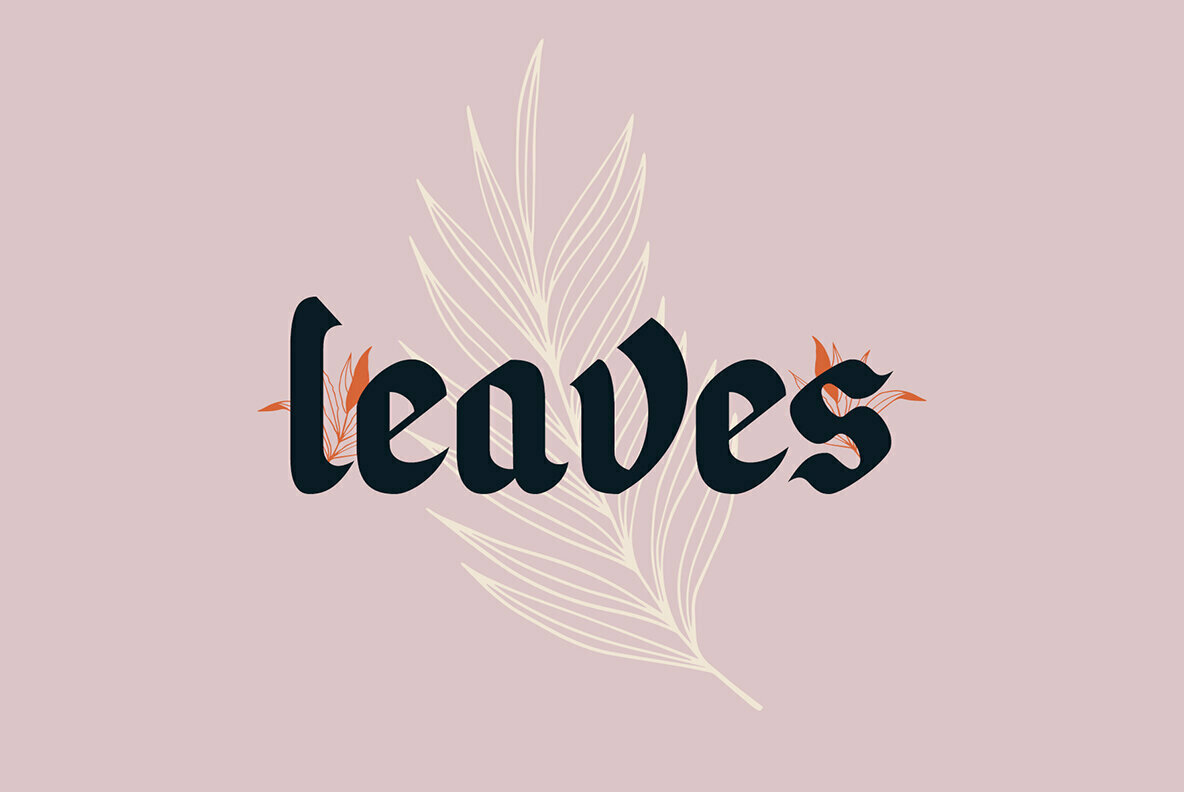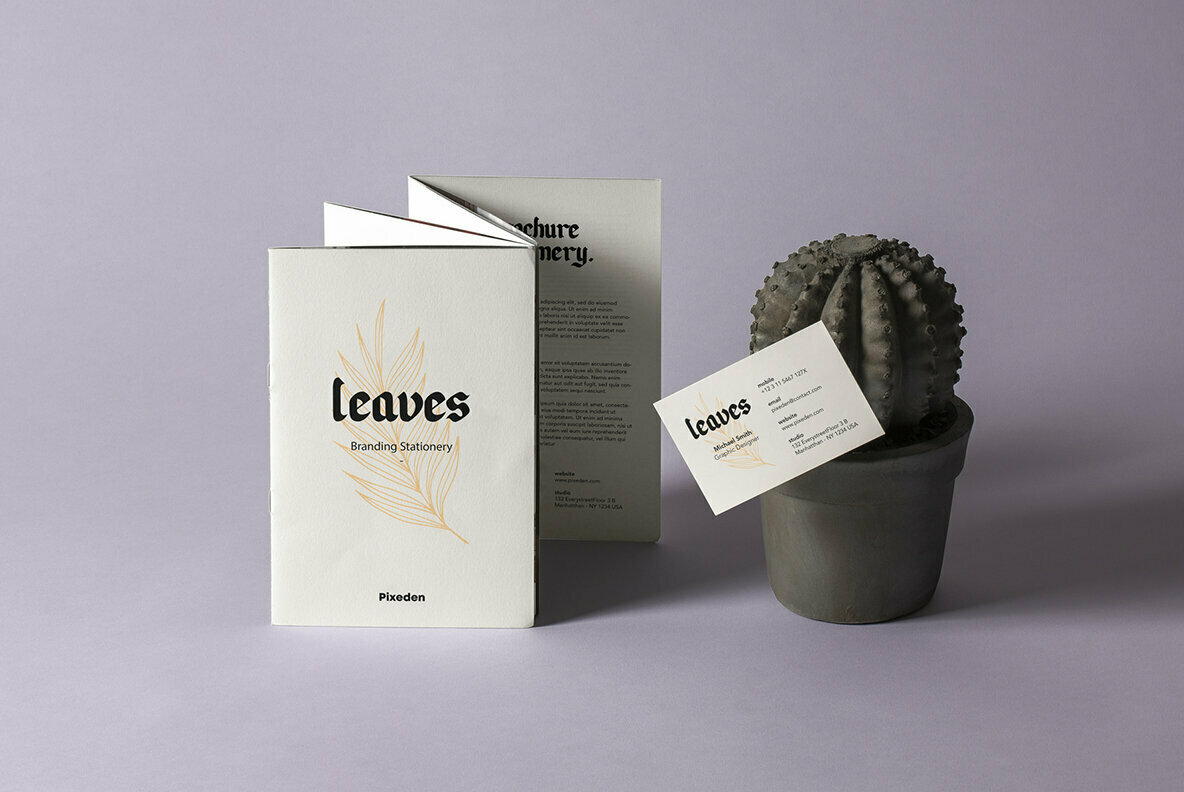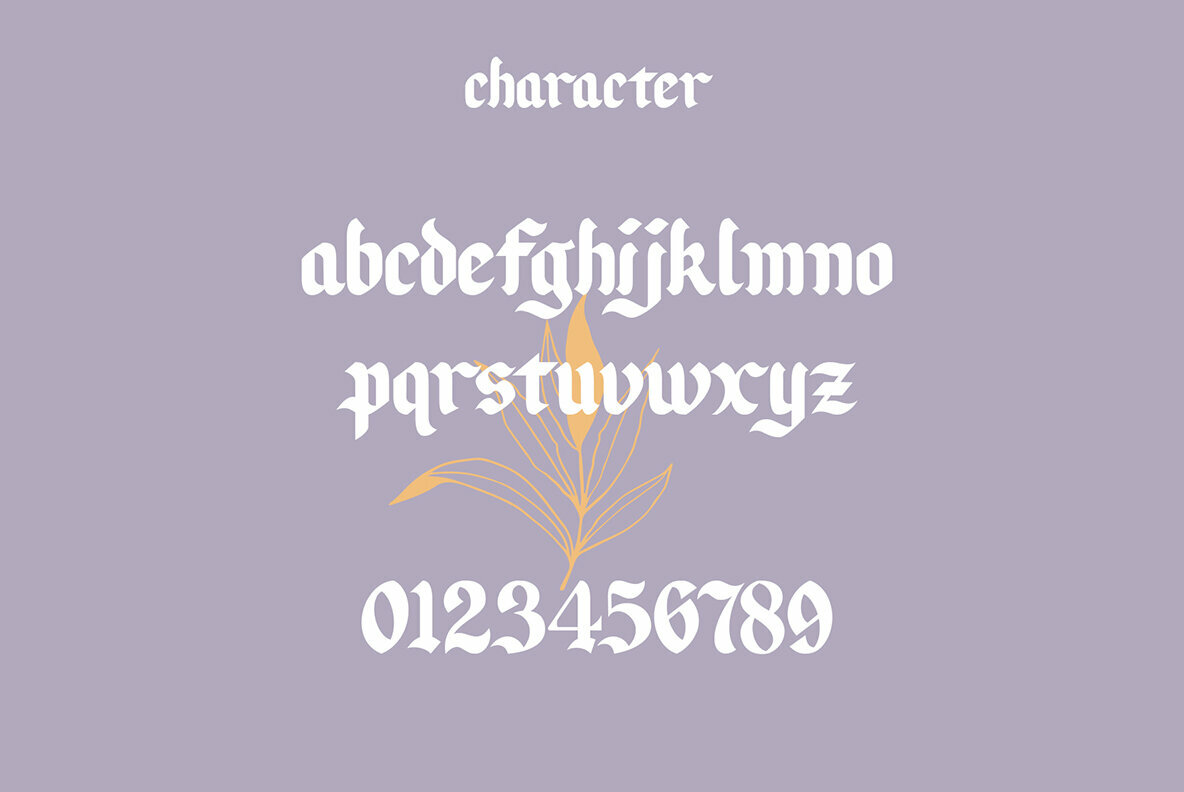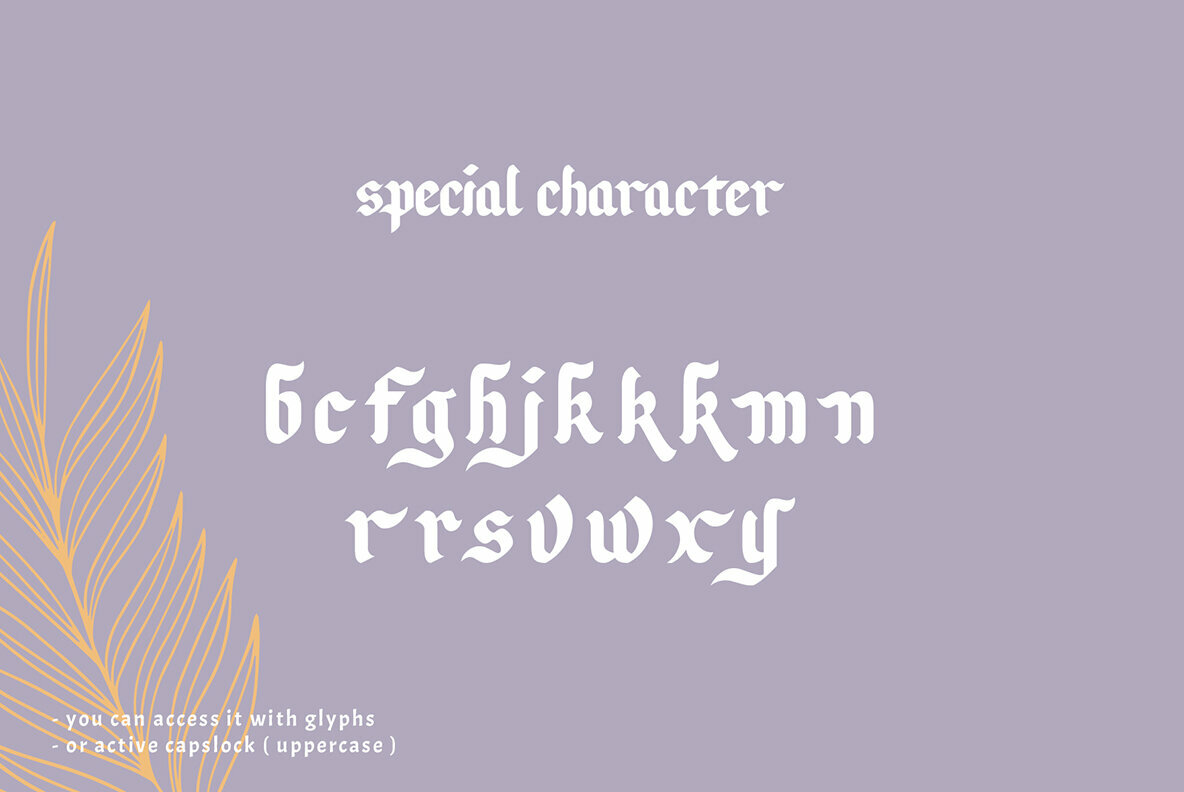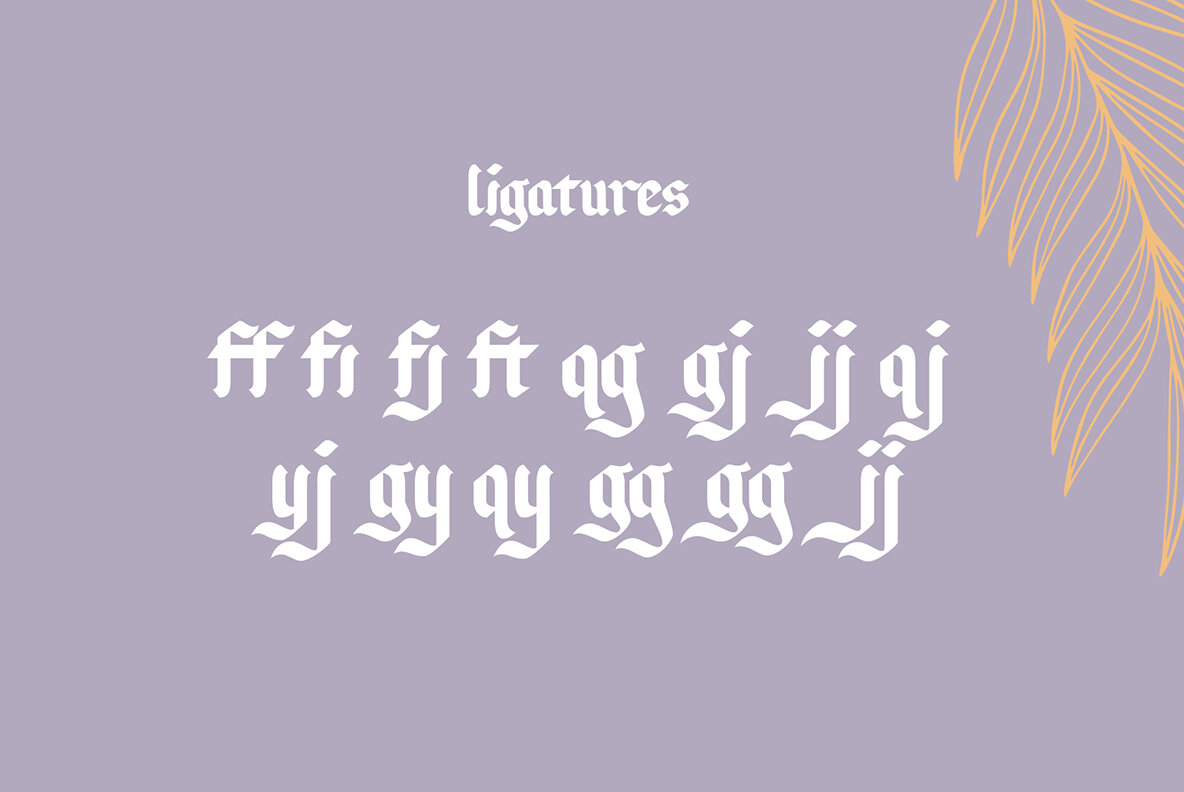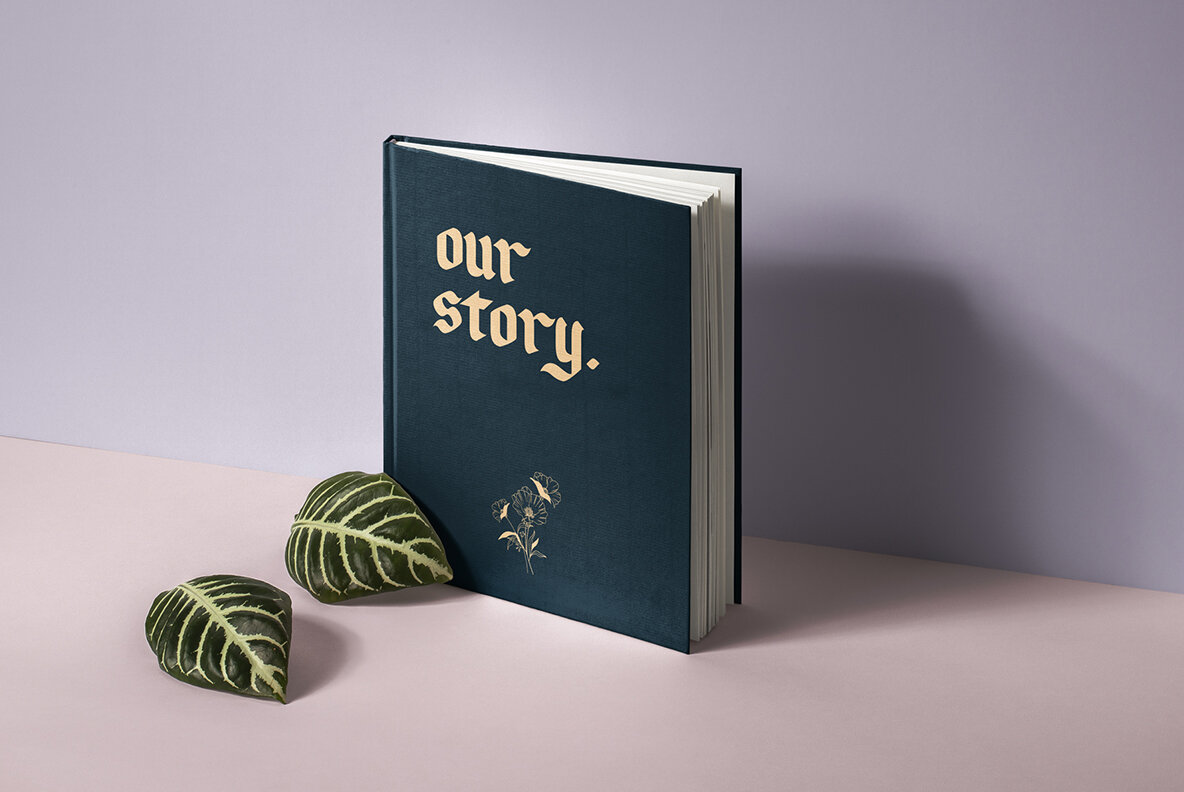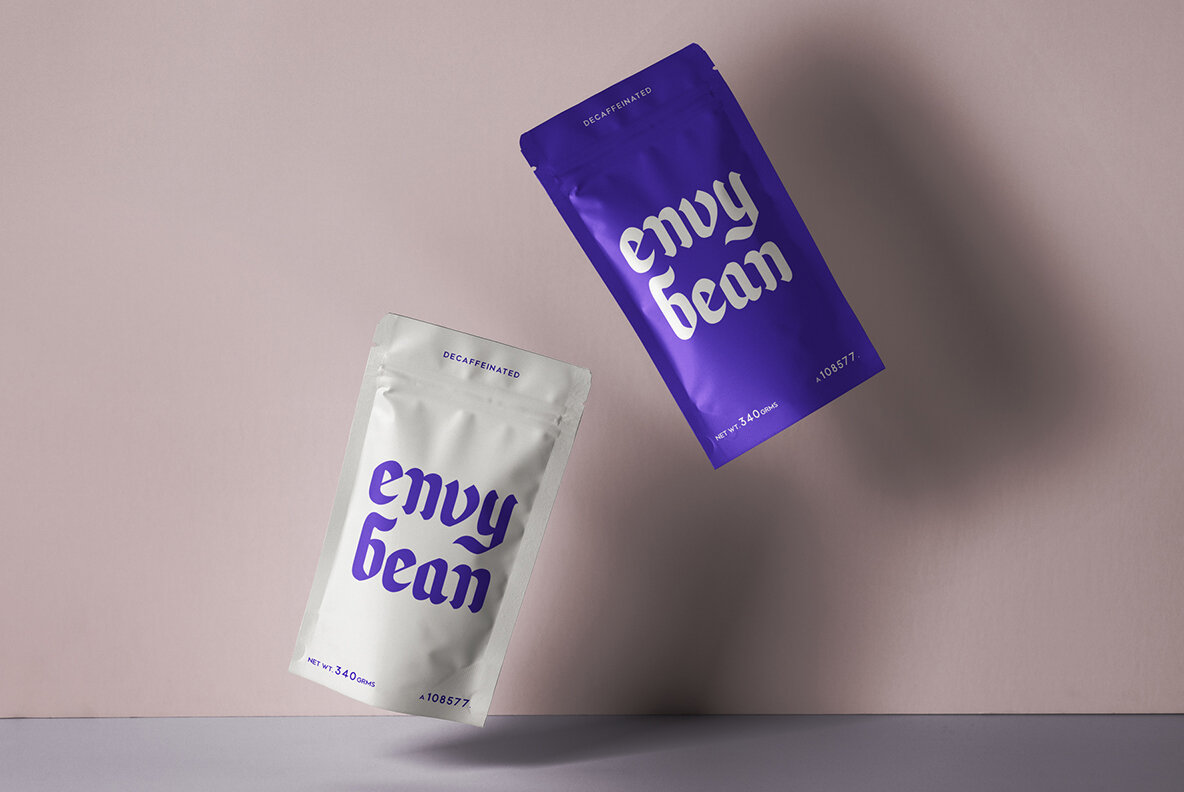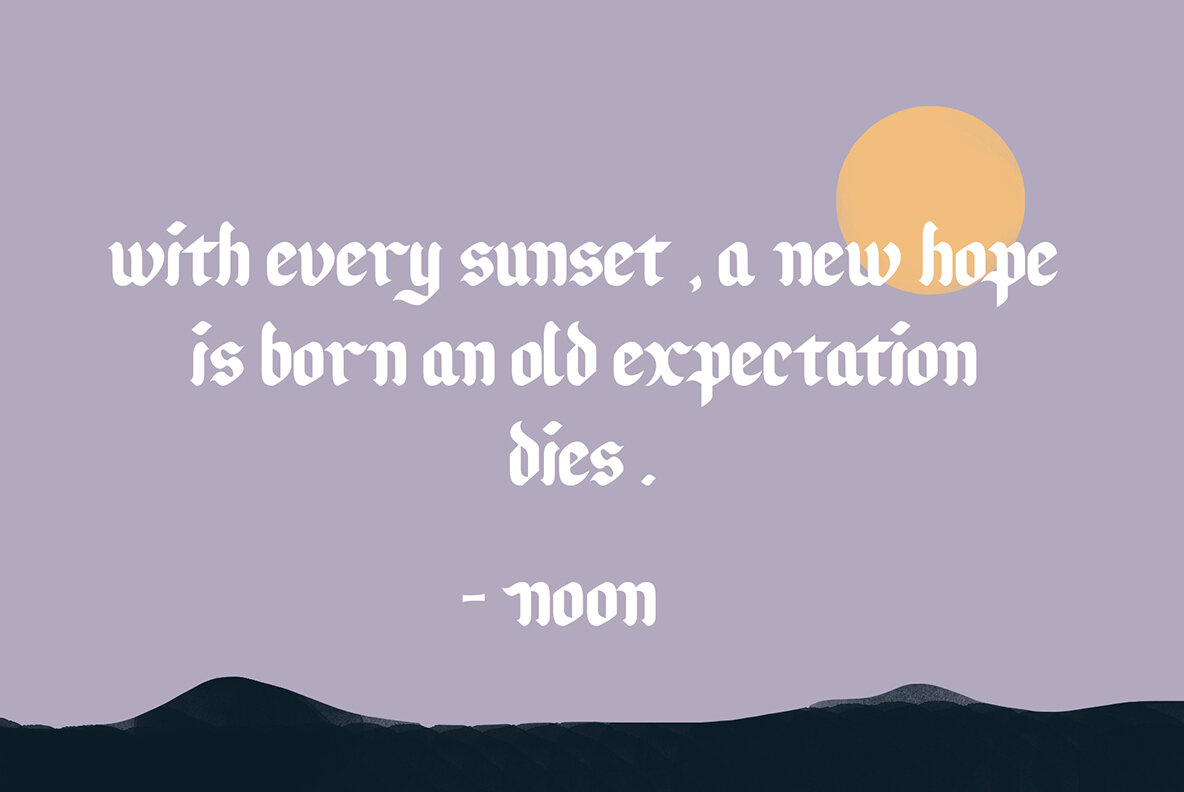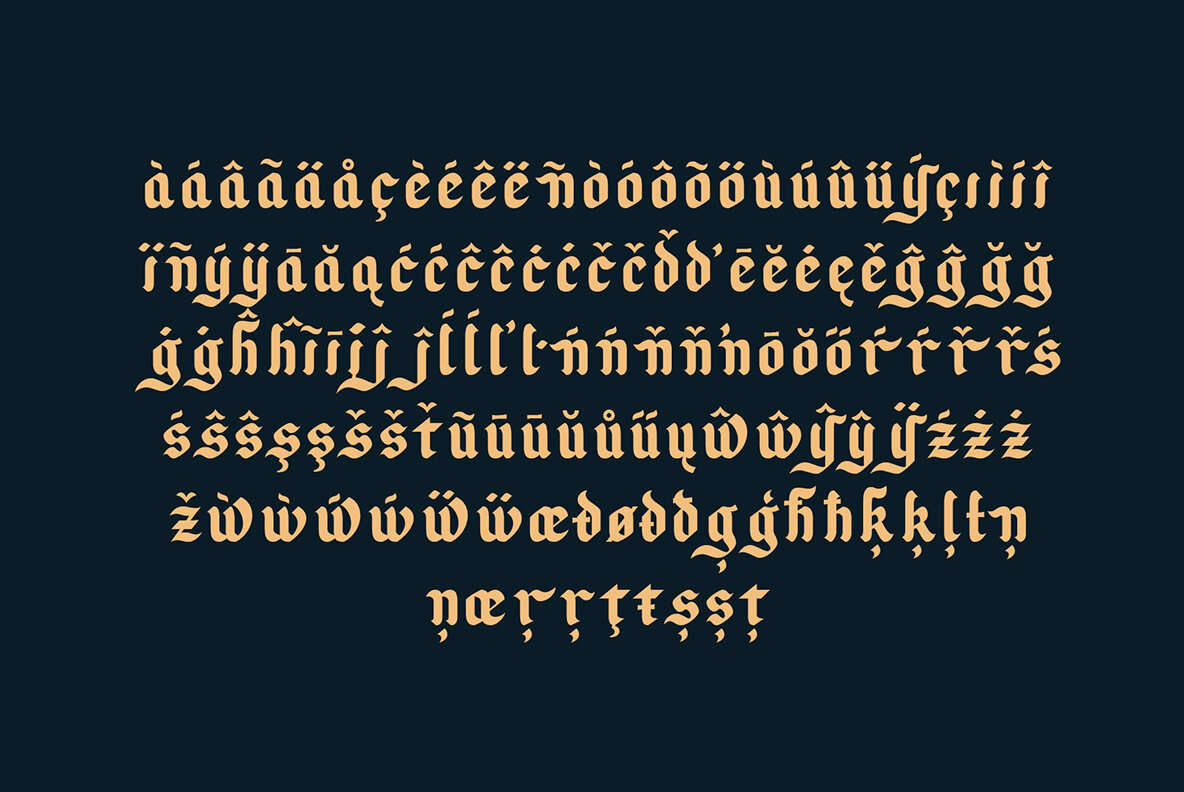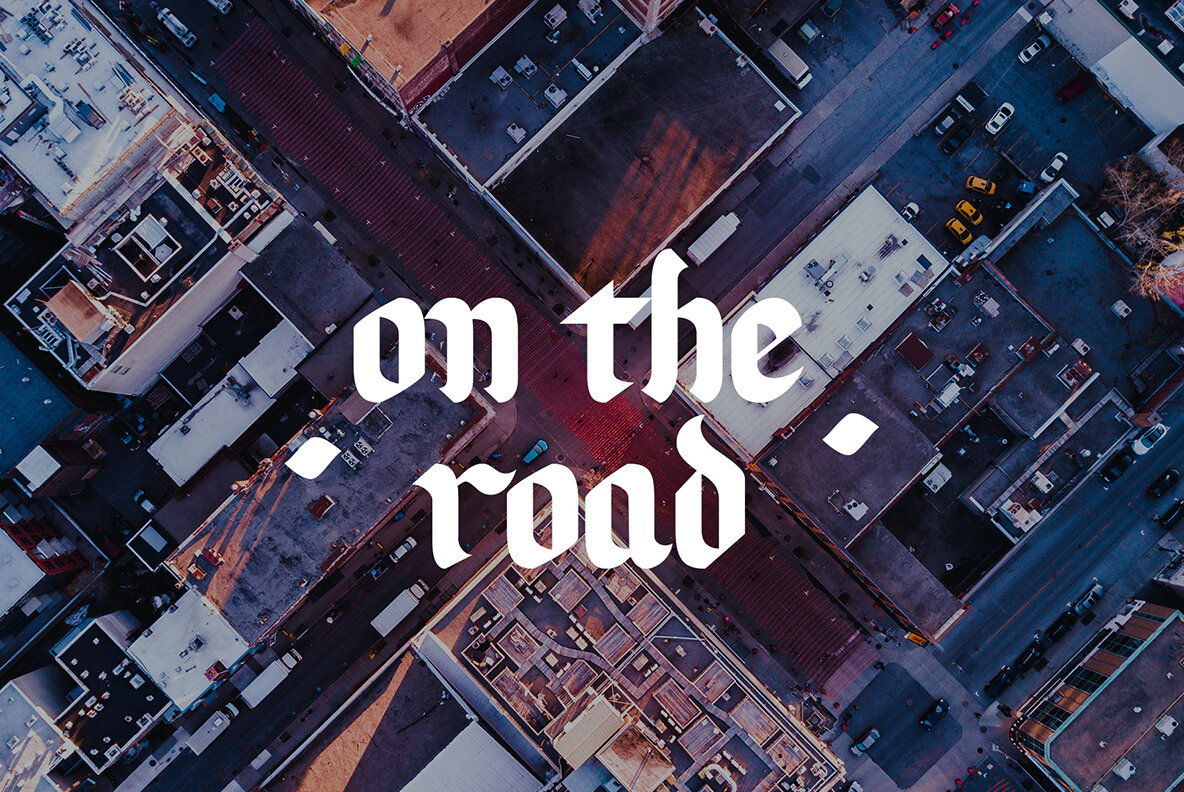
Sunset Road Font
Sunset Road Typeface is a modern and unique blackletter lowercase font. This font is made with references to various letters that I combine and design with my style.
This font is suitable for graphic needs such as branding, logo, tattoo, illustration, poster, etc.
- Alternative character
- Multi language support